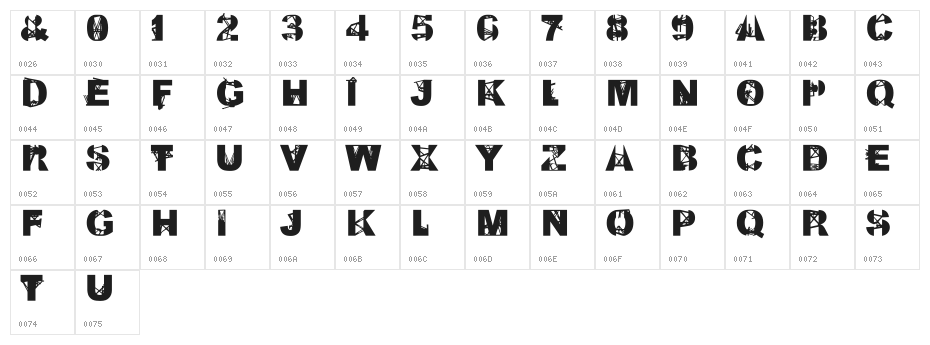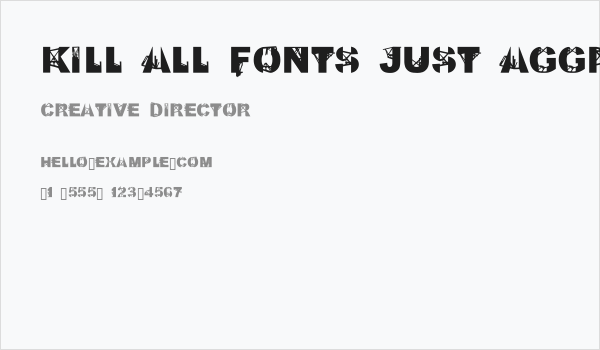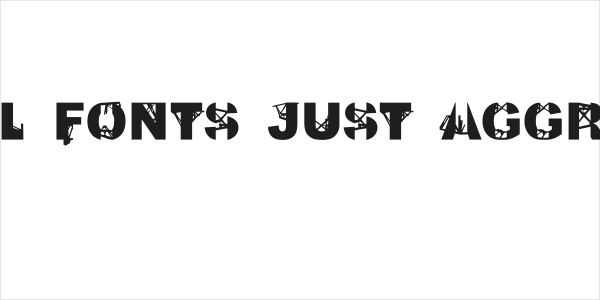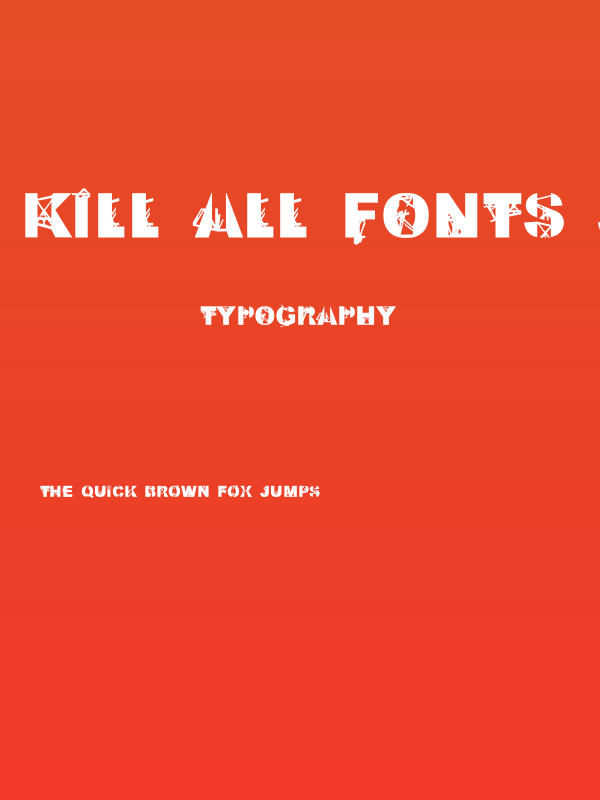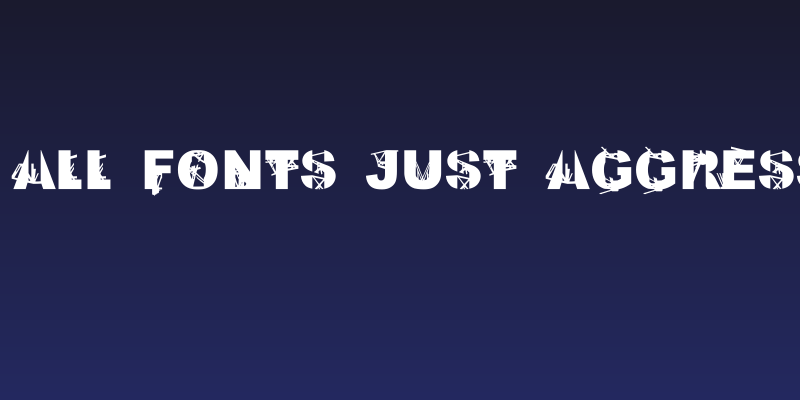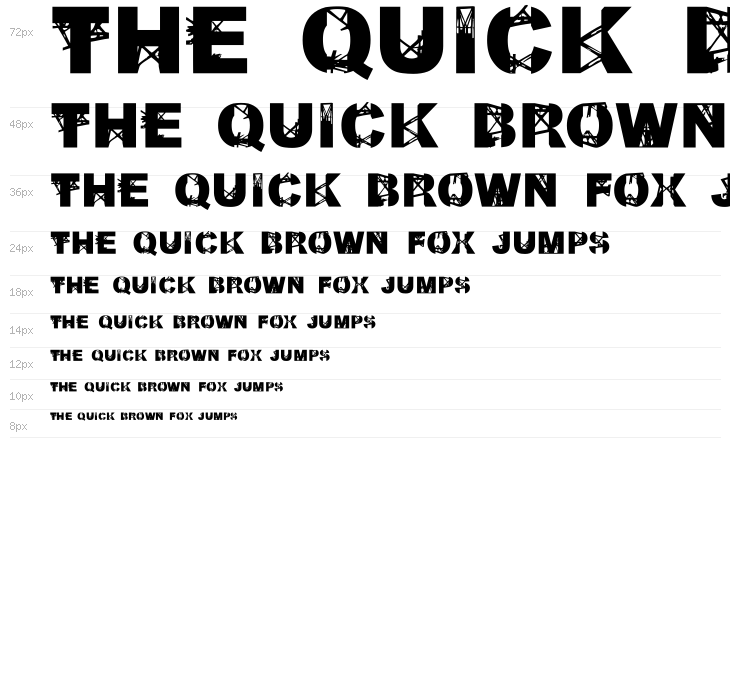
Kill All Fonts Just Aggression Font
Kill All Fonts Just Aggression Description
This font features a bold and aggressive design with a distressed, grunge-like appearance. The characters are heavily stylized with jagged edges and irregular patterns that create a chaotic and intense visual impact. The uppercase and lowercase letters, as well as numbers, maintain a consistent style that emphasizes a sense of destruction and rebellion. The font's unique aesthetic makes it stand out, with each character appearing as if it has been torn or shattered, adding to its overall edgy and raw feel.
| Use Case | Logos, Posters, Album Covers |
| Proposed Projects | Ideal for projects that require a strong, rebellious aesthetic such as music album covers, posters for rock concerts, or edgy branding materials. |